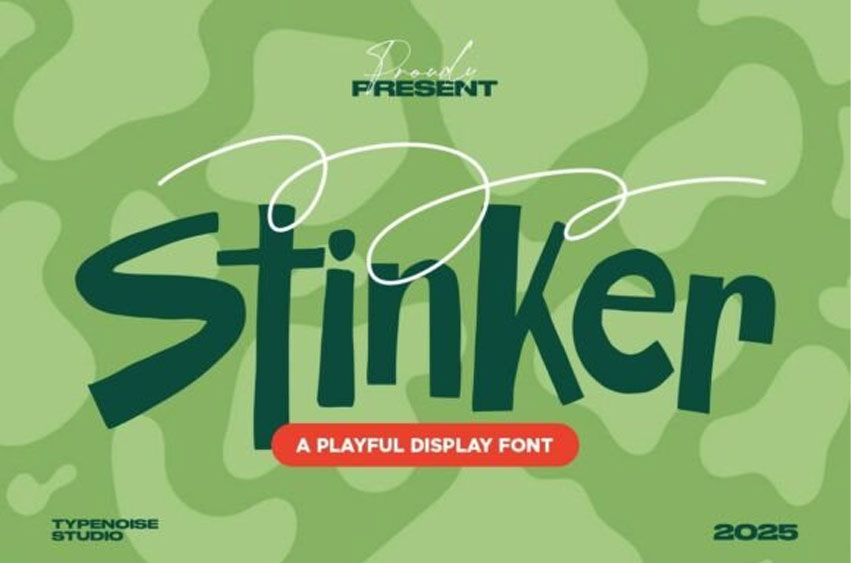
Stinker Font is a fun, hand-drawn display font filled with personality and playful energy. Designed with bold, uneven strokes and an organic handwritten feel, this font instantly brings a sense of humor, spontaneity, and creativity to any project. Its charming irregularities make it perfect for designs that want to stand out with a casual, youthful, and expressive vibe.
Whether you’re creating children’s book covers, playful branding, posters, merchandise, cartoon titles, event flyers, or social media graphics, Stinker brings a lively character that captures attention. The font includes complete uppercase & lowercase letters, numbers, and punctuation, giving you flexibility for both headlines and short texts.
If you’re looking for a display font that feels fun, energetic, and delightfully imperfect, Stinker is the perfect choice to brighten up your creative projects.